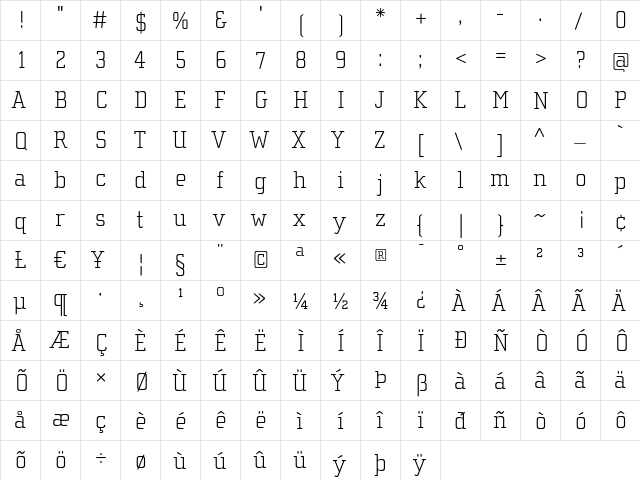
ChollaSlab Thin
Design Context for ChollaSlab Typeface
ChollaSlab features prominent, blocky serifs that give it a confident, grounded presence — equally at home in editorial settings and bold branding work. Its slender proportions lend an understated elegance to any composition.
Suited to magazines, political campaign materials, bold packaging, and any setting where authority matters.
Pro Tip: Use ChollaSlab for headlines and subheadings where its slab serifs can make an impression. It also holds up well in mid-size body copy thanks to its sturdy construction.